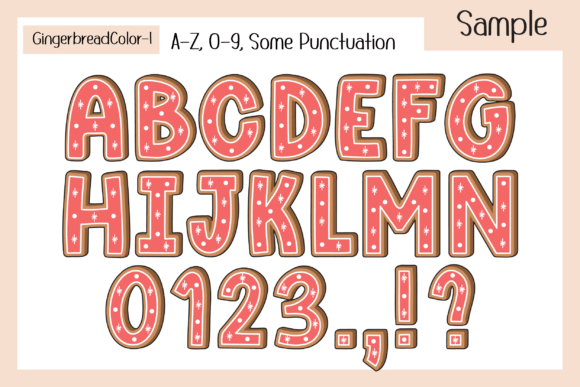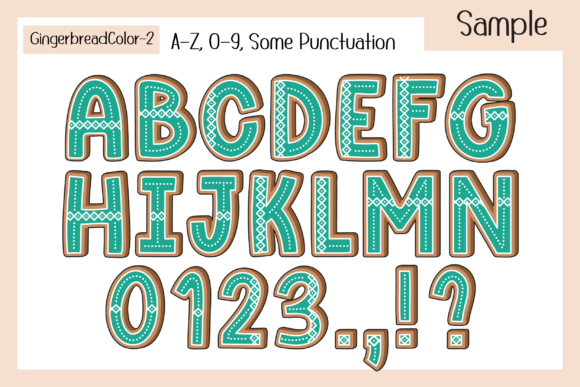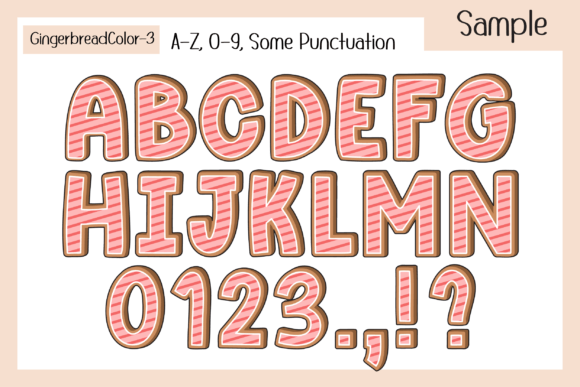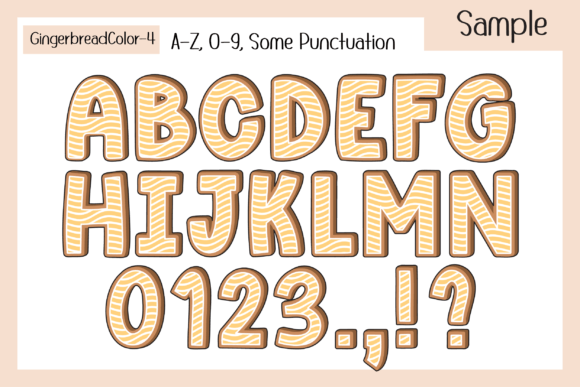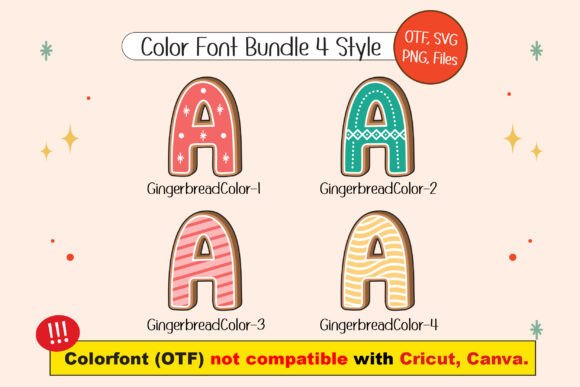
Introducing Gingerbread Alphabet: A Colorful Christmas Font to Sweeten Your Holiday Creations
Are you looking for a festive font to add a touch of holiday cheer to your Christmas posters, T-shirts, branding, and custom DIY craft projects? Look no further than the Gingerbread Alphabet, a playful Christmas font inspired by the delightful combination of gingerbread cookies and vibrant, colorful cream.
A Cheerful Color Font for Your Holiday Creations
The Gingerbread Alphabet comes in a Colorful Cream version, featuring four Christmas-themed color styles to match your unique design needs. This cheerful color font is perfect for adding a burst of color and festive spirit to all your seasonal creations. Whether you’re a designer, crafter, or DIY enthusiast, this font is sure to bring joy and whimsy to your holiday projects.
Endless Design Possibilities with Gingerbread Alphabet
With the Gingerbread Alphabet font, the design possibilities are endless! Use it to create:
- Festive Christmas posters and flyers
- Custom T-shirts and apparel
- Custom DIY craft projects, like signs, banners, and decorations
- Personalized quotes and gift tags
- Customized names and titles for holiday cards and invitations
Why Choose the Gingerbread Alphabet Font?
The Gingerbread Alphabet font is the perfect choice for designers and crafters looking to add a touch of holiday cheer to their creations. With its playful and festive design, this font is sure to:
- Capture the spirit of the holiday season
- Add a burst of color and energy to your designs
- Make your creations stand out from the crowd
- Provide endless design possibilities and versatility
Get Ready to Sweeten Your Holiday Creations!